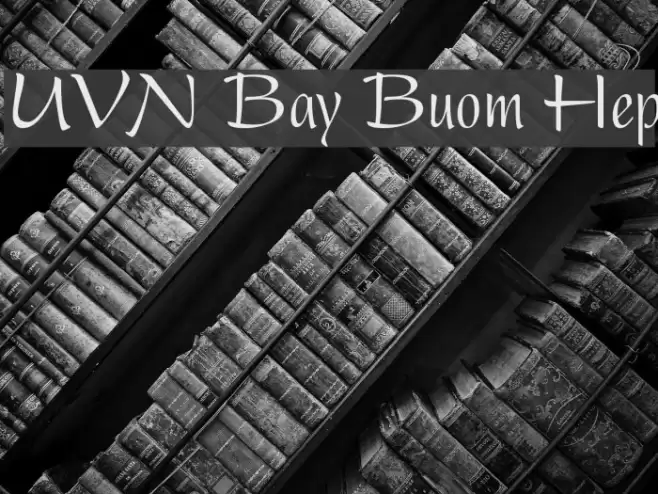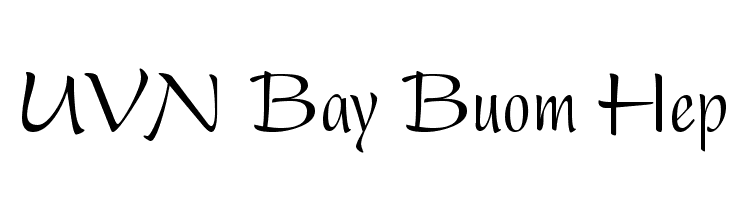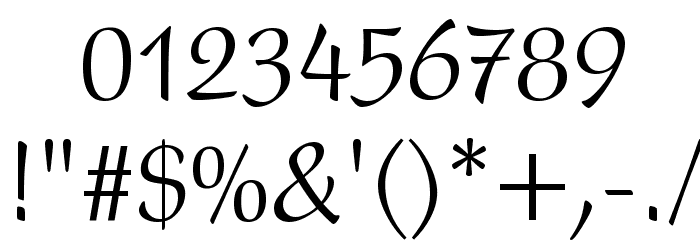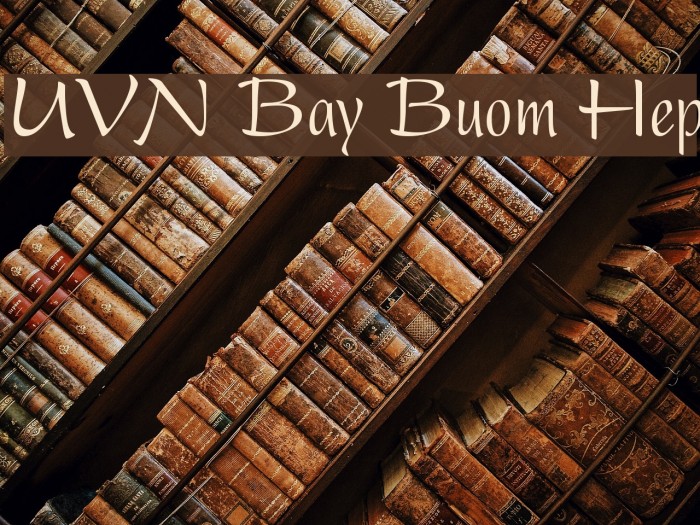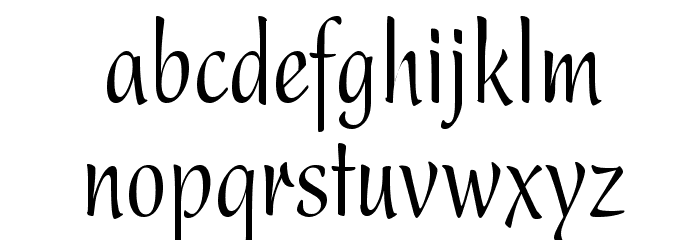
UVN Bay Buom Hep Font
UVN Bay Buom Hep Description
This font features a unique blend of elegance and playfulness, characterized by its flowing, cursive-like strokes and slight slant. The uppercase letters are bold and prominent, with distinctive flourishes that add a touch of sophistication. Lowercase letters maintain a consistent style, offering a harmonious balance between readability and artistic flair. The numerals are clear and well-defined, matching the overall aesthetic of the font. Special characters are designed with the same attention to detail, ensuring a cohesive look across all text elements. This font is ideal for projects that require a touch of elegance and creativity.
A cursive-inspired font with elegant flourishes and a playful style from Uncategorized fonts.